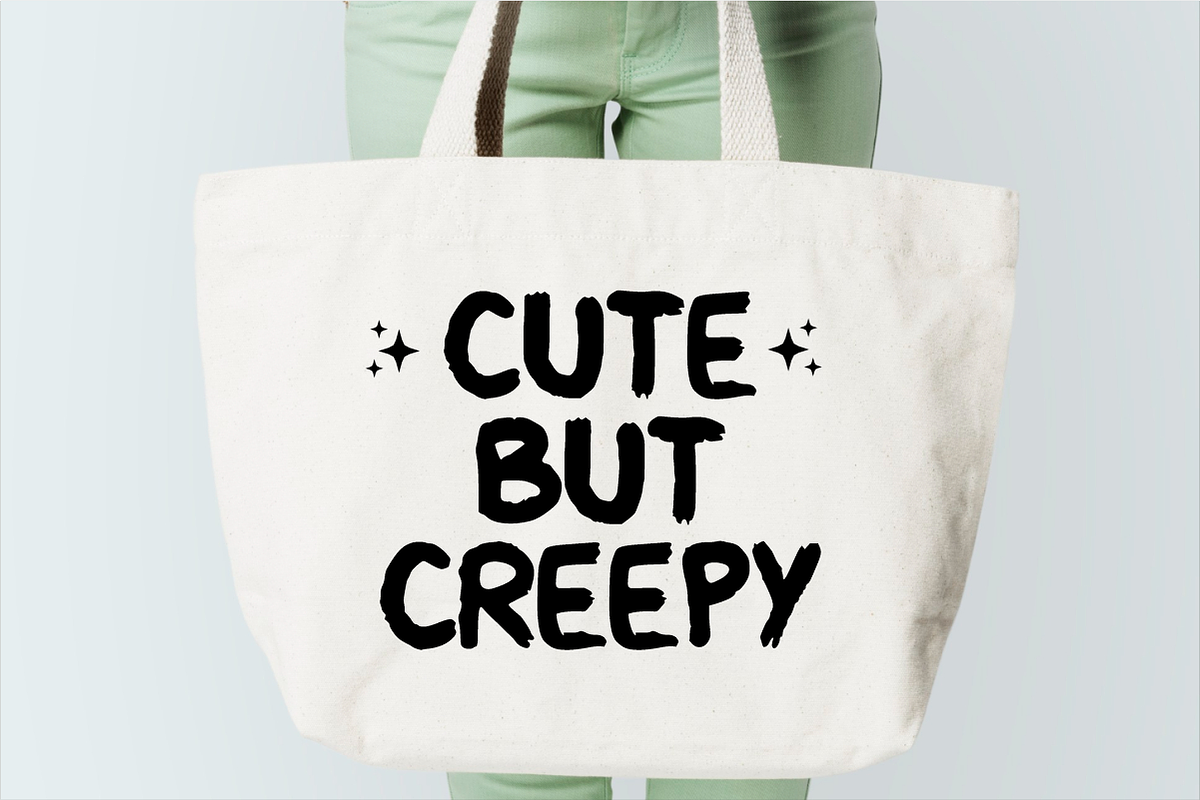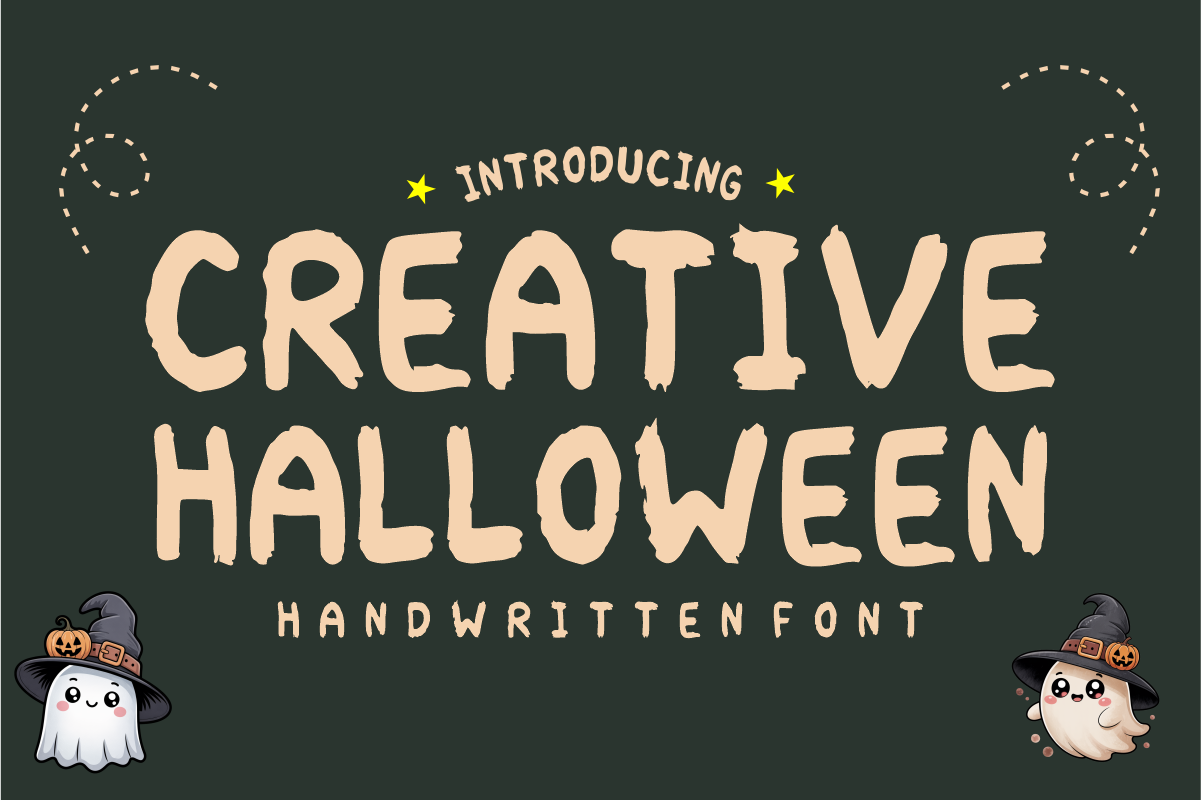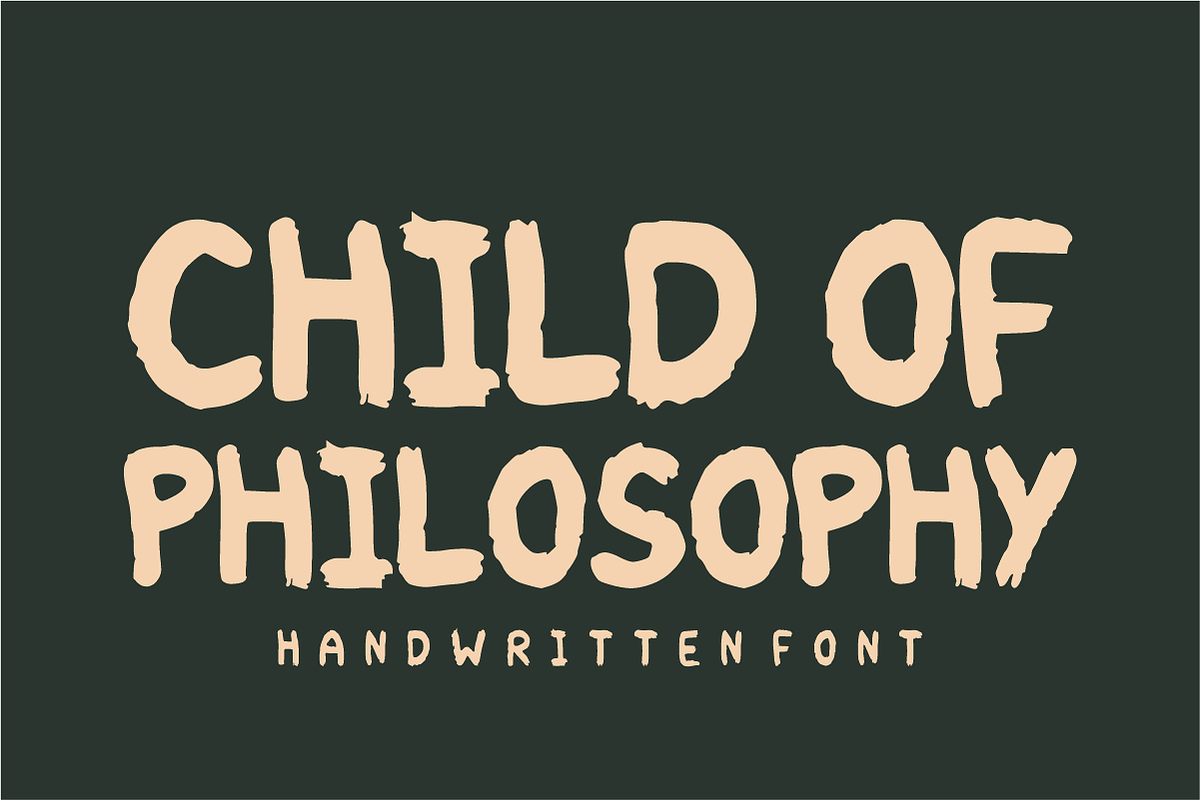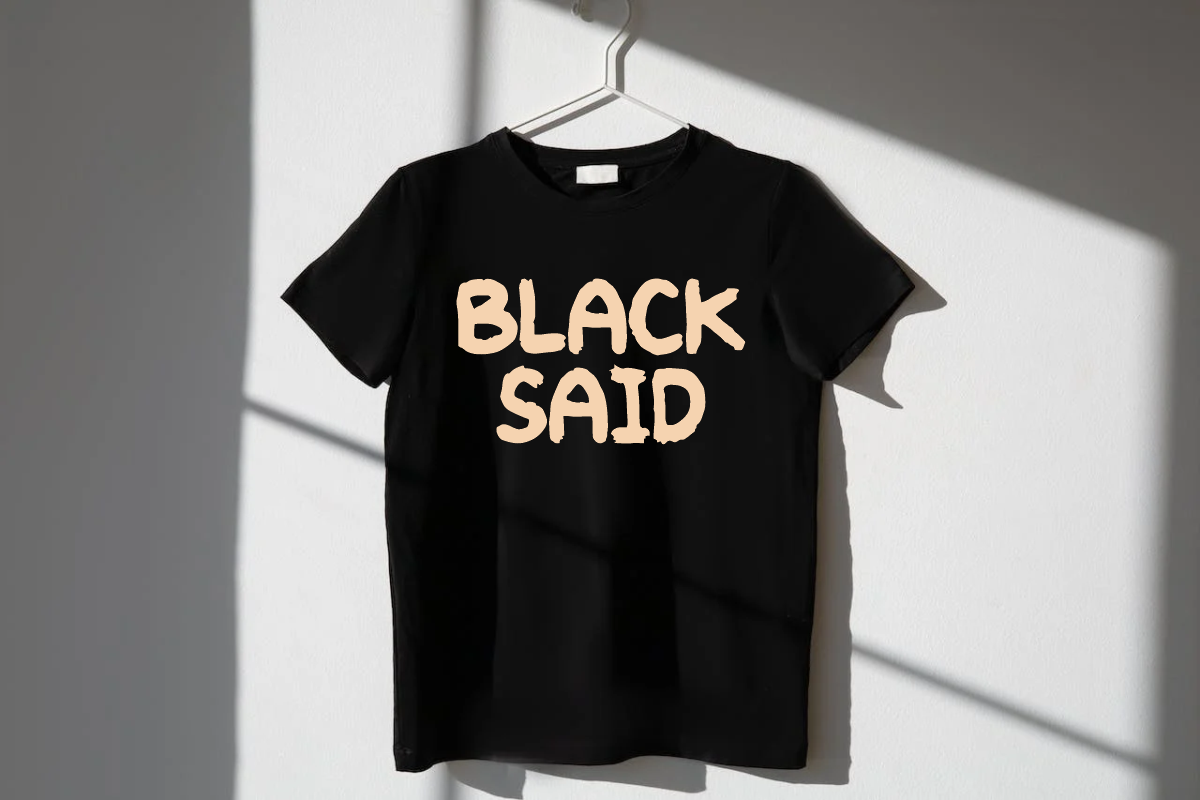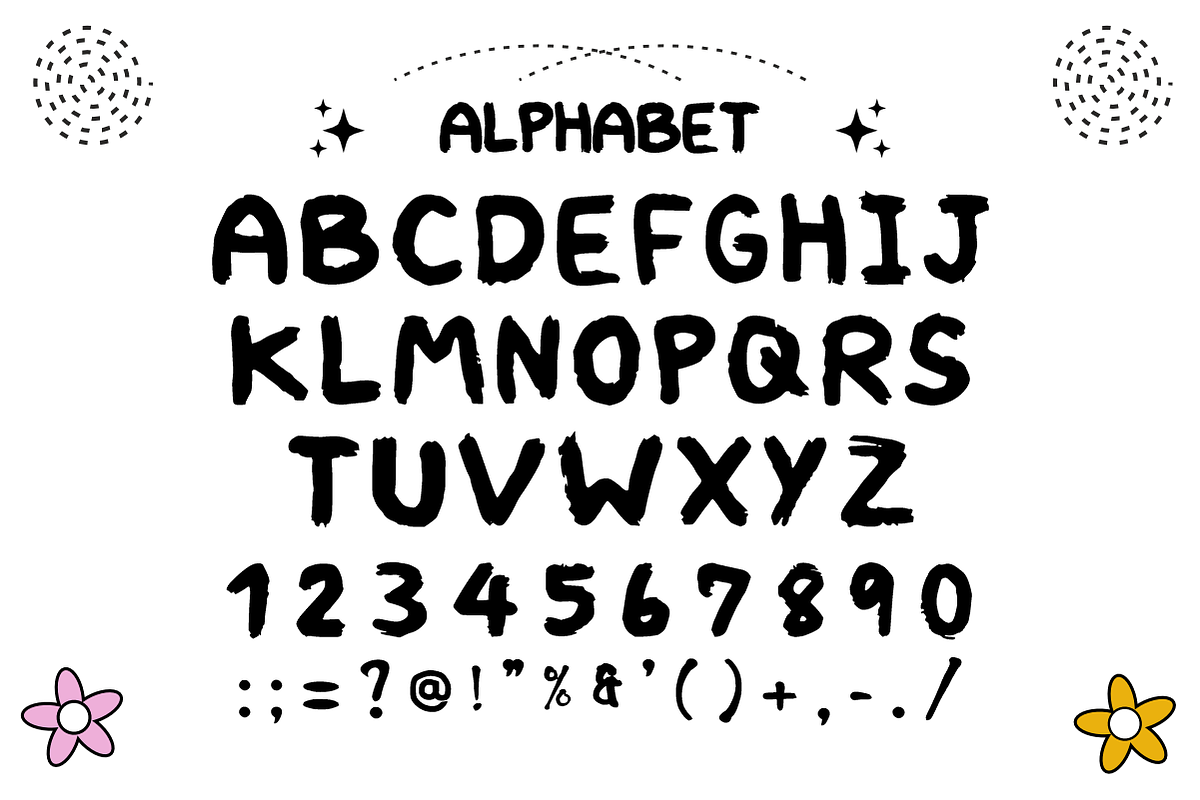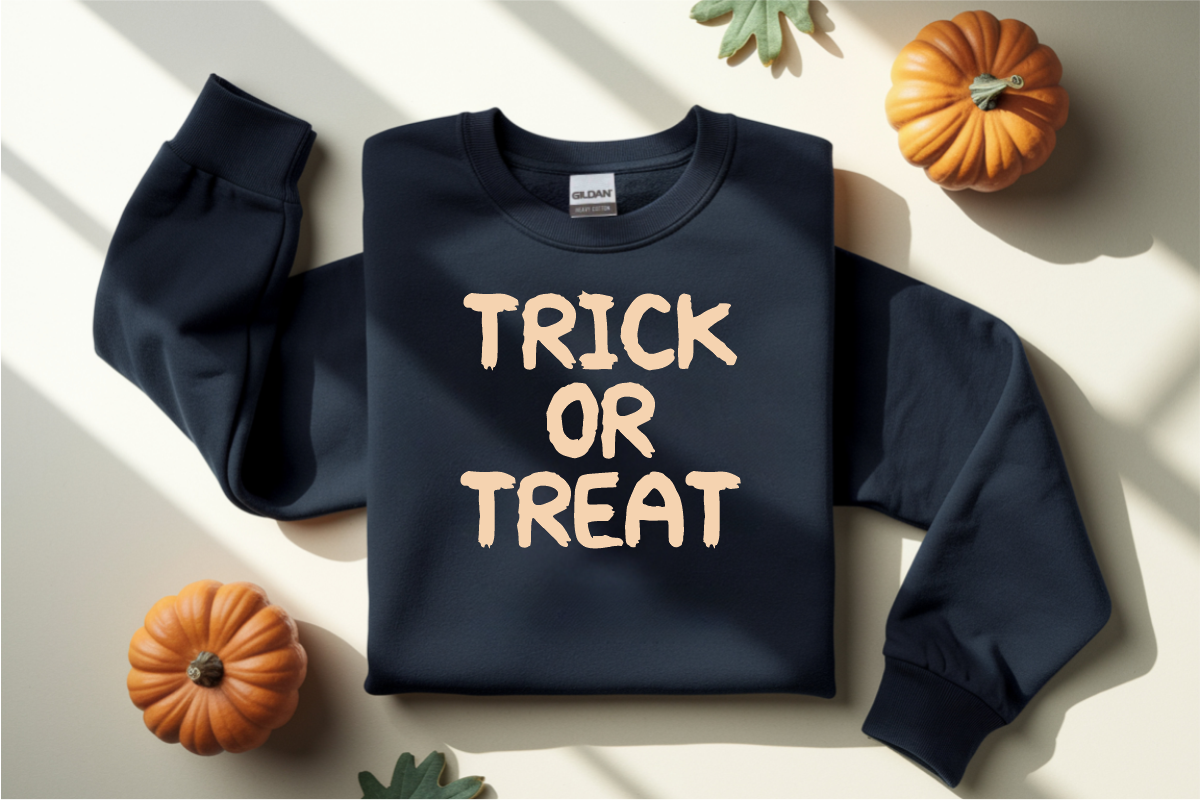
Creative Halloween - Spooky Font
Creative Halloween is a fun, hand-drawn display font featuring a unique rough brush texture and playful letterforms. Perfectly blending spooky and cute aesthetics, this charming font is ideal for Halloween party invitations, trick-or-treat apparel, custom stickers, and spooky autumn crafts. Every character features clean vector paths to guarantee high-resolution prints and smooth, effortless cutting on Cricut and Silhouette machines.
Uppercase Character Set
Numbers & Basic Punctuation
Ideal For:
Halloween party invitations, trick-or-treat bags, and spooky event flyers
Custom die-cut stickers, festive labels, and autumn planner decals
Kids' Halloween apparel, cute ghost t-shirts, and seasonal merchandise
Classroom decorations, school posters, and teacher activity sheets
Spooky business branding, candy packaging, and cheerful logos
Cricut, Silhouette, and DIY vinyl crafting projects